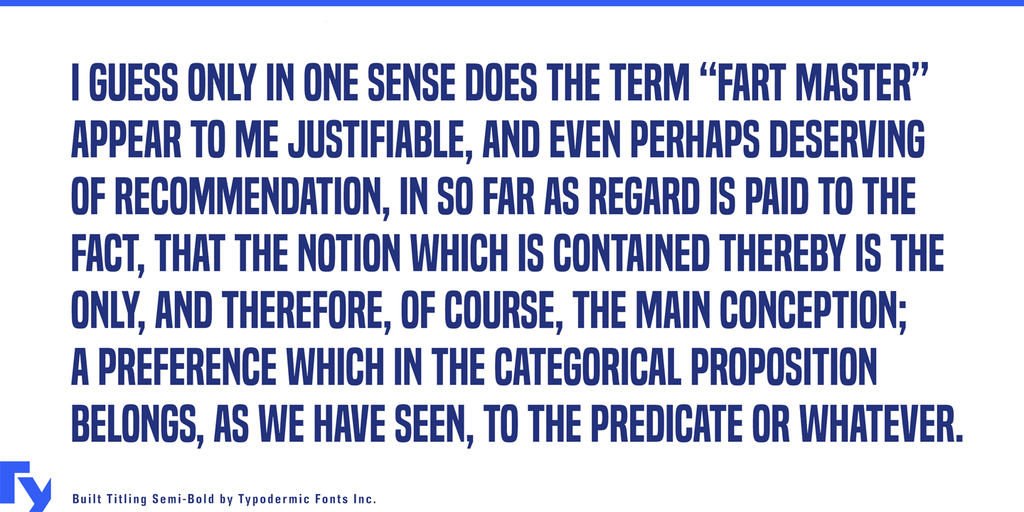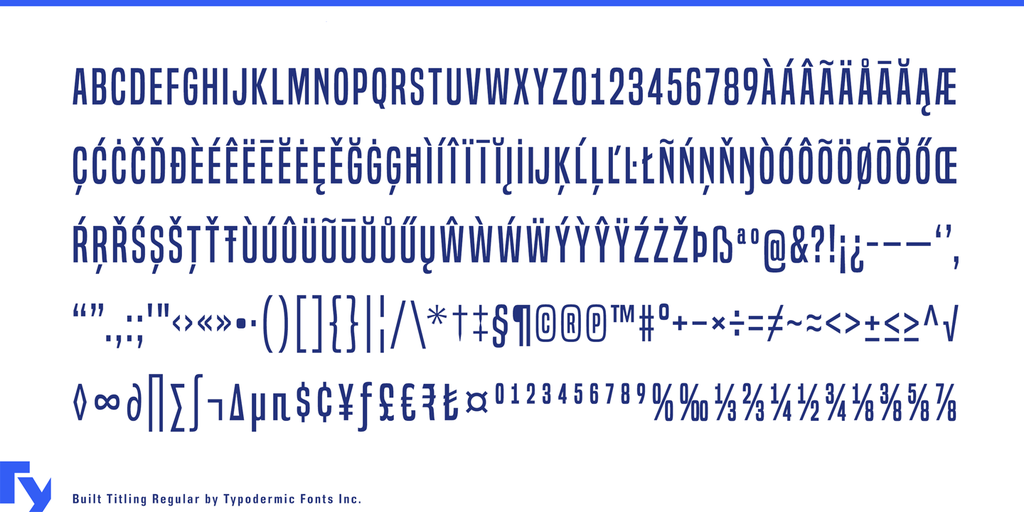
Built Titling Font Family
Built Titling is an all-caps headline family rooted in bold newspaper typography. Five weights with matching italics combine strong proportions, subtle curves, and width that narrows in the lighter styles, helping mastheads, posters, statistics, financial graphics, digital banners, and long titles stay prominent and legible.